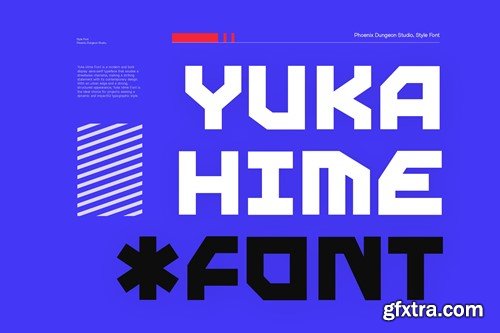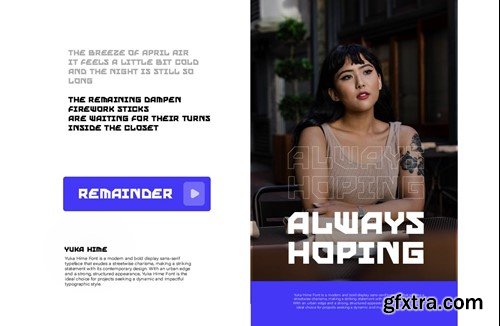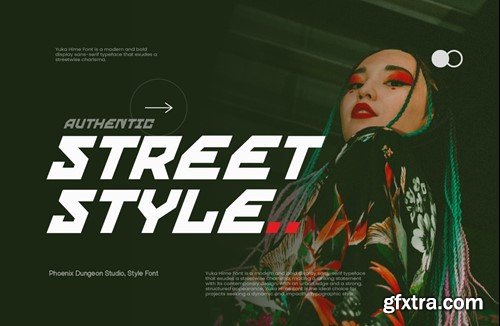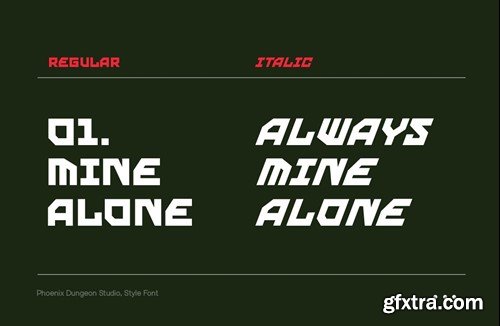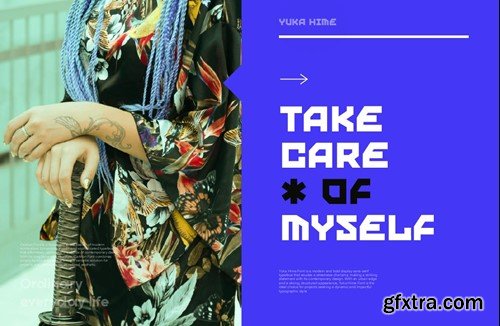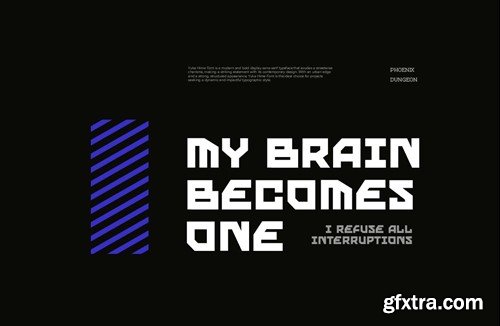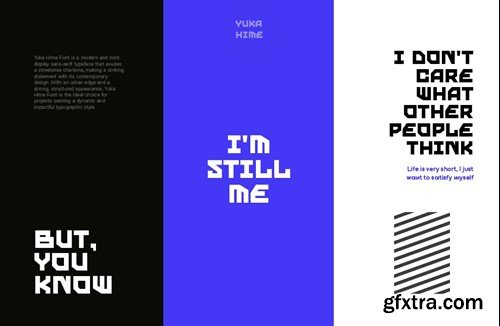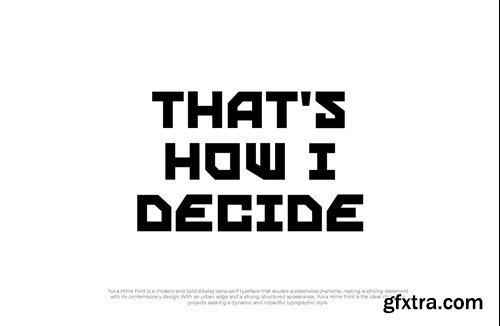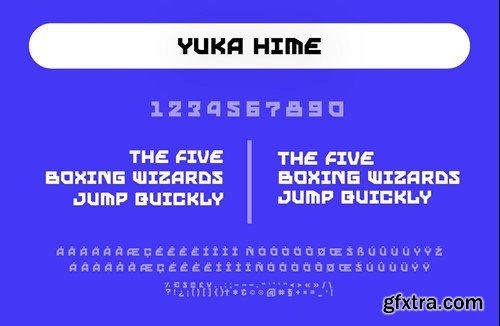
雨宫雅代字体2VTFFBL
Yuka Hime Typeface 2VTFFBL
Yuka Hime Typeface
Yuka Hime Font is a modern and bold display sans-serif typeface that exudes a streetwise charisma, making a striking statement with its contemporary design. With an urban edge and a strong, structured appearance, Yuka Hime Font is the ideal choice for projects seeking a dynamic and impactful typographic style.